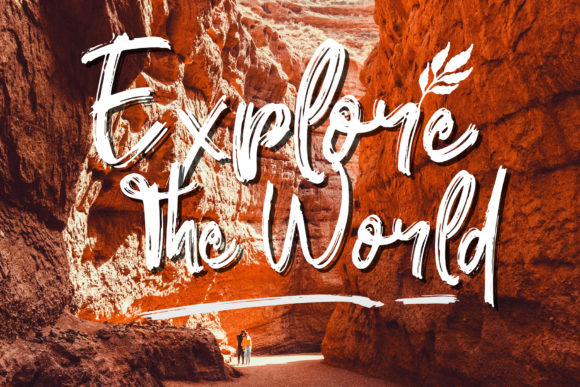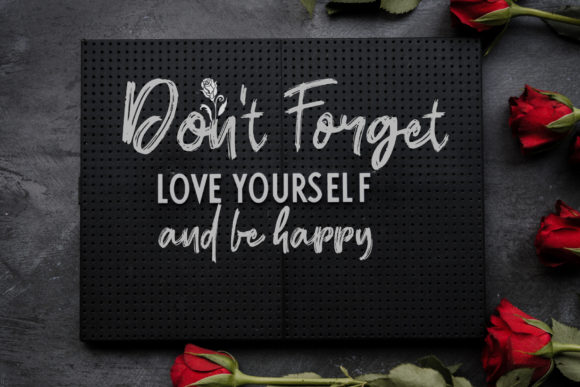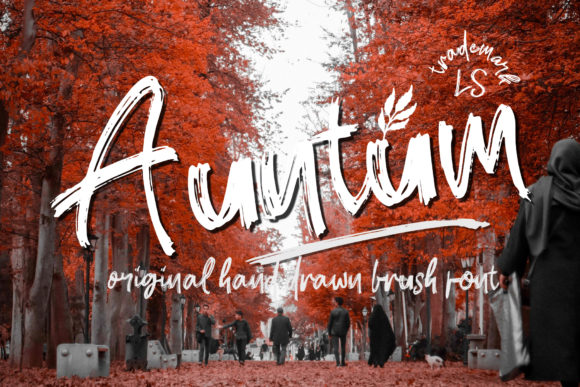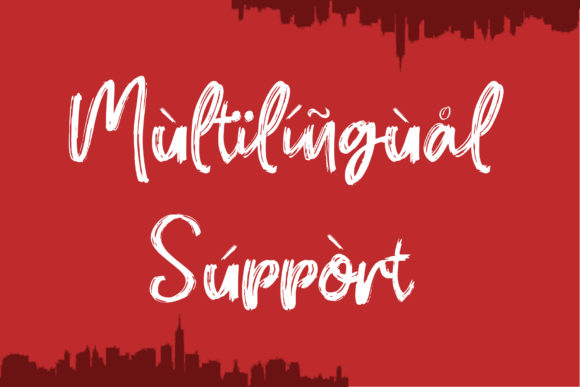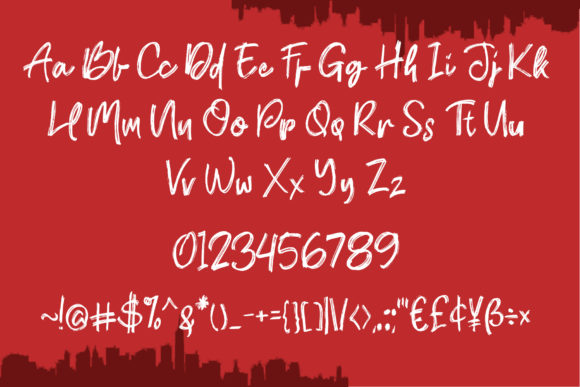
Introducing Brookland Font: The Ultimate Brushed Display Font for Creative Projects
Are you a designer, crafter, or DIY enthusiast looking for a unique and versatile font to elevate your creative projects? Look no further than Brookland Font, a stunning brushed, rough textured display font that’s perfect for a wide range of applications. In this article, we’ll dive into the world of Brookland Font, exploring its features, uses, and benefits, and why it’s a must-have for any creative looking to add a personal touch to their work.
What is Brookland Font?
Brookland Font is a one-of-a-kind, hand-crafted font that’s designed to add a touch of rugged elegance to your designs. With its distinctive brushed, rough textured look, Brookland Font is perfect for creating visually striking logos, headings, and typography that stands out from the crowd. Whether you’re working on a logo, t-shirt design, signage, or any other project that requires a bold, eye-catching font, Brookland Font is the perfect choice.
Key Features of Brookland Font
So, what makes Brookland Font so special? Here are just a few of its key features:
- Brushed, rough textured look: Brookland Font’s unique texture gives it a rugged, hand-crafted feel that’s perfect for adding a personal touch to your designs.
- Versatile: Brookland Font can be used for a wide range of applications, from logos and headings to t-shirts, letterhead, signage, labels, news, posters, badges, and more.
- Easy to read: Despite its textured look, Brookland Font is surprisingly easy to read, making it perfect for use in both digital and print applications.
- Scalable: Brookland Font is designed to be scalable, so you can use it for everything from small icons to large billboards.
Uses for Brookland Font
So, what can you use Brookland Font for? The possibilities are endless! Here are just a few ideas to get you started:
- Logo design: Brookland Font is perfect for creating unique, memorable logos that stand out from the crowd.
- T-shirt design: Add a personal touch to your t-shirt designs with Brookland Font’s rugged, textured look.
- Signage: Brookland Font is a great choice for signage, whether you’re creating a storefront sign, a directional sign, or a promotional banner.
- Posters and flyers: Add some visual interest to your posters and flyers with Brookland Font’s bold, eye-catching design.
- Social media graphics: Use Brookland Font to create engaging social media graphics that stand out from the crowd.
Benefits of Using Brookland Font
So, why should you choose Brookland Font for your next project? Here are just a few benefits of using this amazing font:
- Adds a personal touch: Brookland Font’s unique, hand-crafted look adds a personal touch to your designs, setting them apart from the competition.
- Increases visibility: Brookland Font’s bold, eye-catching design is sure to grab attention and increase visibility for your brand or message.
- Versatile: Brookland Font can be used for a wide range of applications, making it a great addition to any designer’s toolkit.
| Font Name | Brookland Font |
| Author | Gumacreative |
In conclusion, Brookland Font is a must-have for any designer, crafter, or DIY enthusiast looking to add a personal touch to their creative projects. With its unique brushed, rough textured look, versatility, and ease of use, Brookland Font is the perfect choice for a wide range of applications. Whether you’re working on a logo, t-shirt design, signage, or any other project that requires a bold, eye-catching font, Brookland Font is sure to deliver. So why wait? Download Brookland Font today and start creating stunning, one-of-a-kind designs that stand out from the crowd!